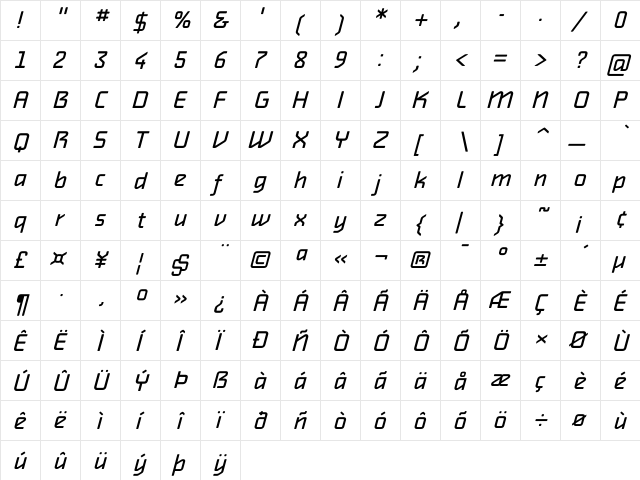
Alphaville Oblique
Design Context for Alphaville Typeface
Alphaville is a composed and adaptable typeface that performs quietly and consistently across a wide range of design contexts. Its italic angle brings a sense of urgency and motion to the letterforms.
Pro Tip: Try Alphaville for annotation and caption copy alongside an upright companion — the contrast in angle creates a dynamic but ordered typographic system.